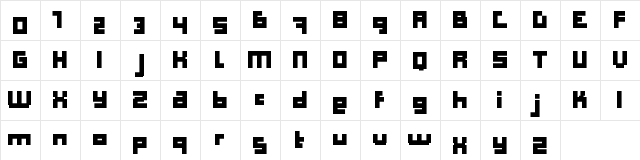
Computer Aid Bold
Design Context for Computer Aid Typeface
Computer Aid takes a measured approach to typography — its balanced proportions and neutral character make it a reliable workhorse for both digital and print work. Its bold stroke weight gives it real presence on the page.
Pro Tip: Use Computer Aid in both headline and body roles to test its range before committing to a single application.